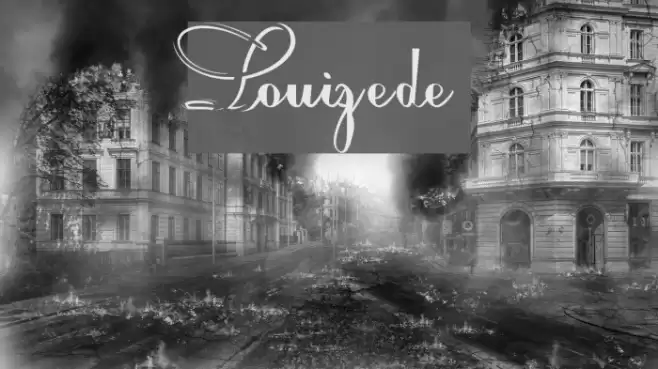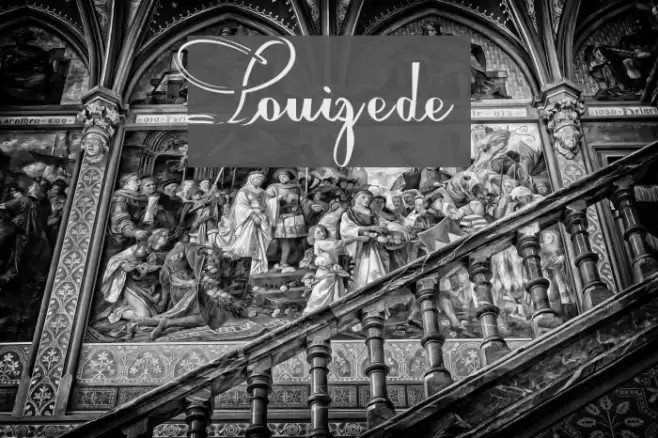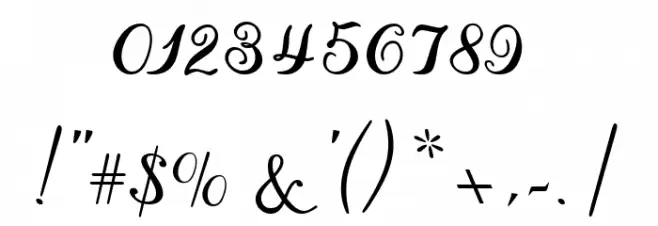
Louizede Font
Louizede Description
This font exudes elegance and sophistication with its intricate, flowing script style. The uppercase letters are highly decorative, featuring elaborate swirls and flourishes that give a sense of grandeur and formality. The lowercase letters maintain a cursive style, with smooth, connected strokes that enhance readability while retaining an artistic flair. The numerals are consistent with the overall design, offering a balanced mix of readability and style. Special characters are thoughtfully designed to match the ornate nature of the font, making it suitable for creative and decorative purposes.
- Proposed Projects: Ideal for wedding invitations, luxury branding, elegant stationery, and decorative headlines.
- Use Case: Headlines, Logos, Invitations